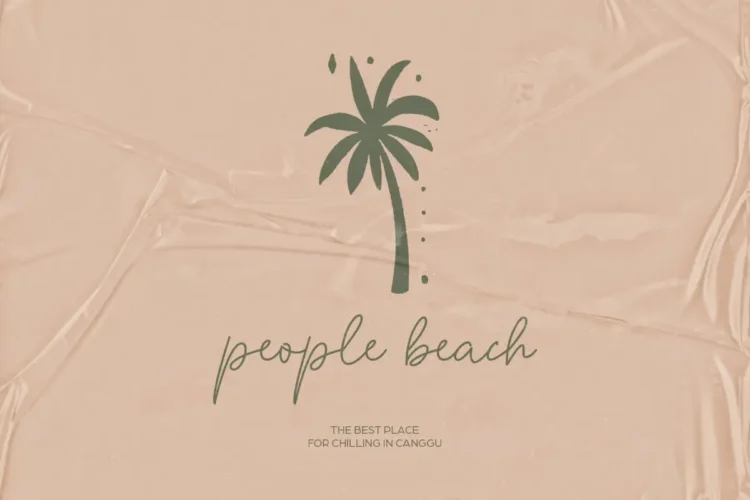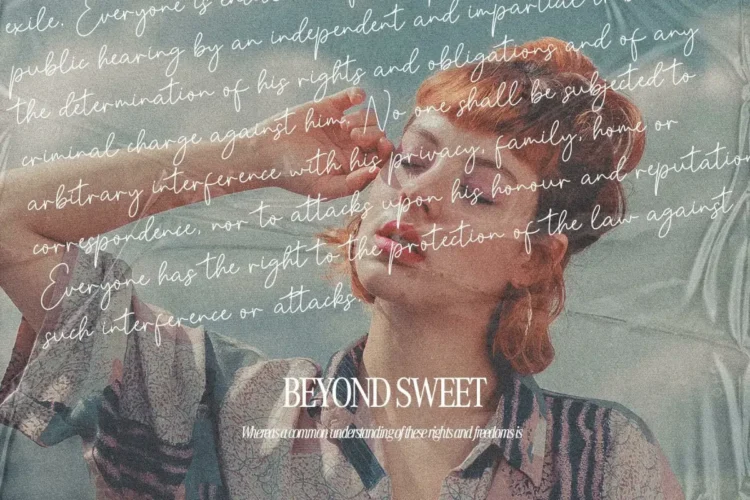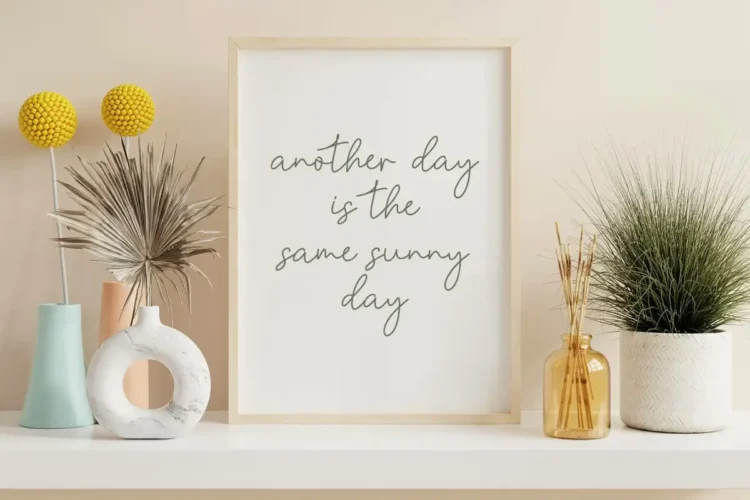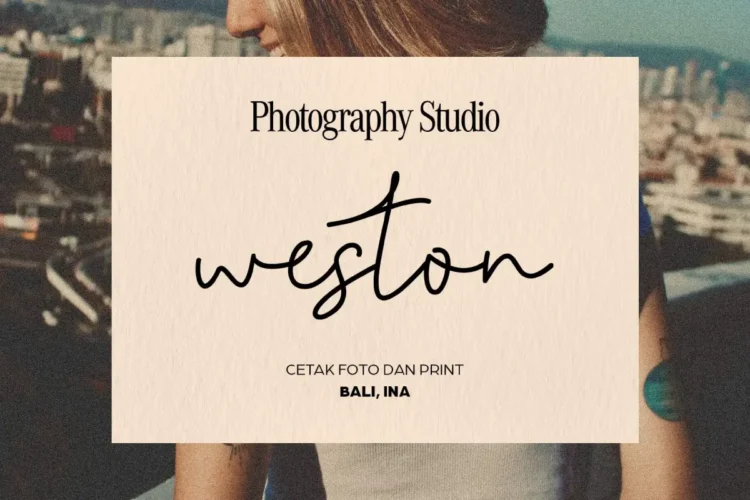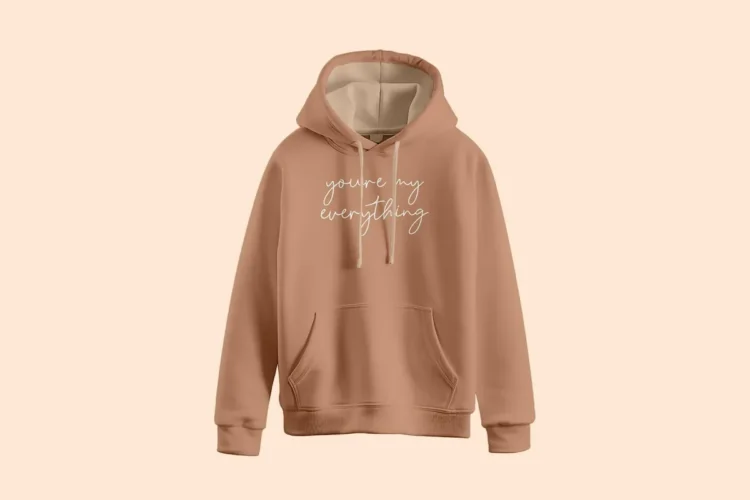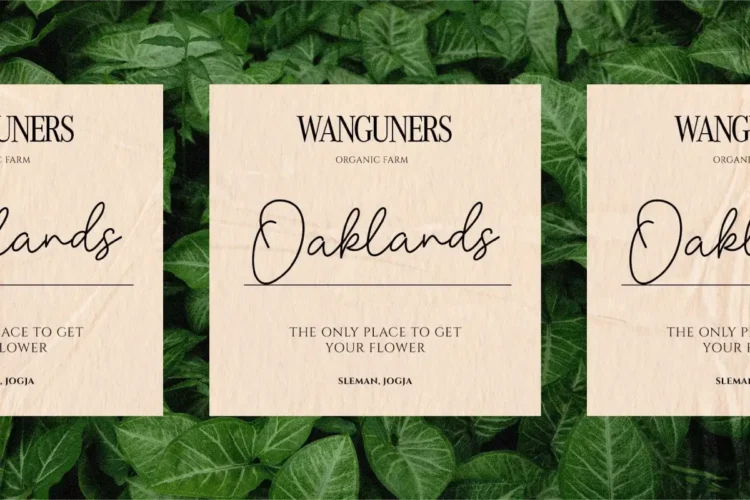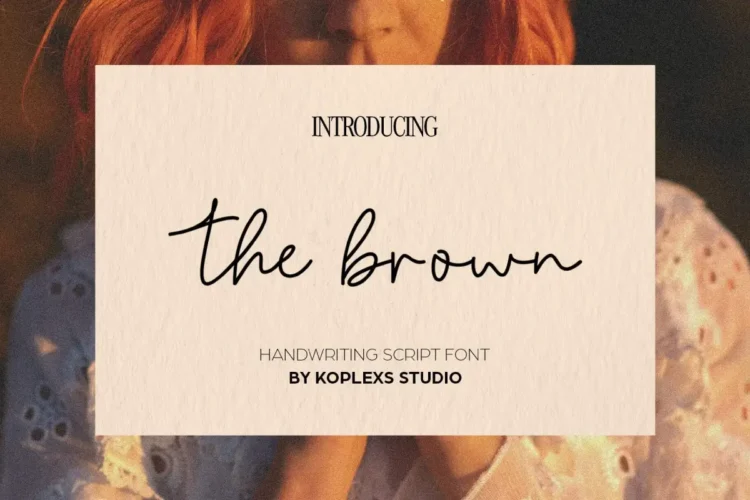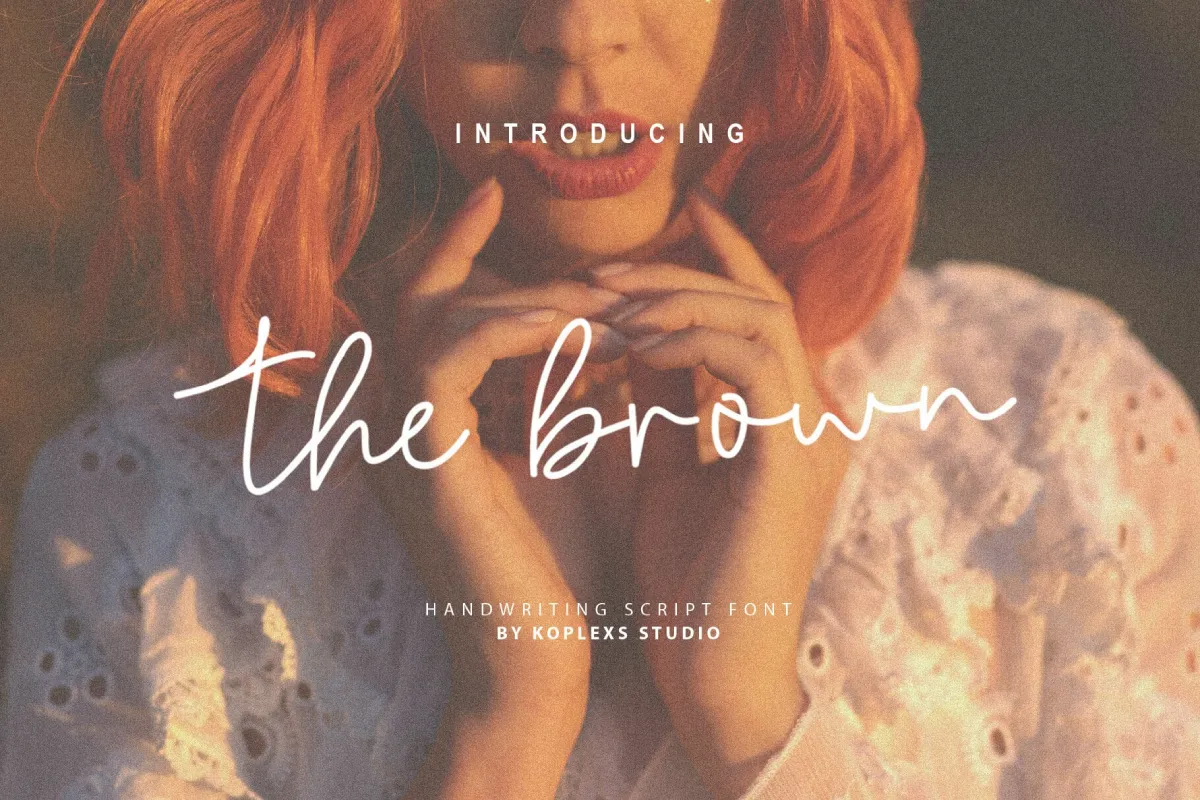
The Brown Font – Elegant Handwriting Script Font for Branding, Wedding & Modern Design
The Brown Font is a beautifully crafted handwriting script font created with a natural and effortless handwritten flow. Designed by Koplexs Studio, this signature font captures the essence of warmth, elegance, and creativity, perfect for projects that demand an authentic personal touch.
This cursive font combines modern minimalism with a graceful calligraphic style, making it ideal for branding, wedding invitations, and luxury product packaging. Its smooth curves and delicate strokes evoke sophistication while maintaining readability and versatility across print and digital formats.
Whether you’re designing a cosmetic brand logo, fashion label, photography watermark, or social media aesthetic, The Brown Font enhances every project with a clean, feminine, and organic vibe. It’s a perfect match for those who appreciate modern fonts that communicate elegance, simplicity, and luxury.
The Brown Font Included :
- Alternates
- Ligatures
The Brown Font is versatile and works beautifully for :
- ✨ Wedding Invitations & Stationery
- 💄 Cosmetic Branding & Product Packaging
- 👜 Fashion & Lifestyle Logos
- 📸 Photography Watermarks
- 🌸 Home Decor Prints & Quotes
- 📱 Social Media Posts & Branding Kits
- 🧴 Perfume, Beauty & Skincare Labels
- 🏝️ Travel & Lifestyle Blogs